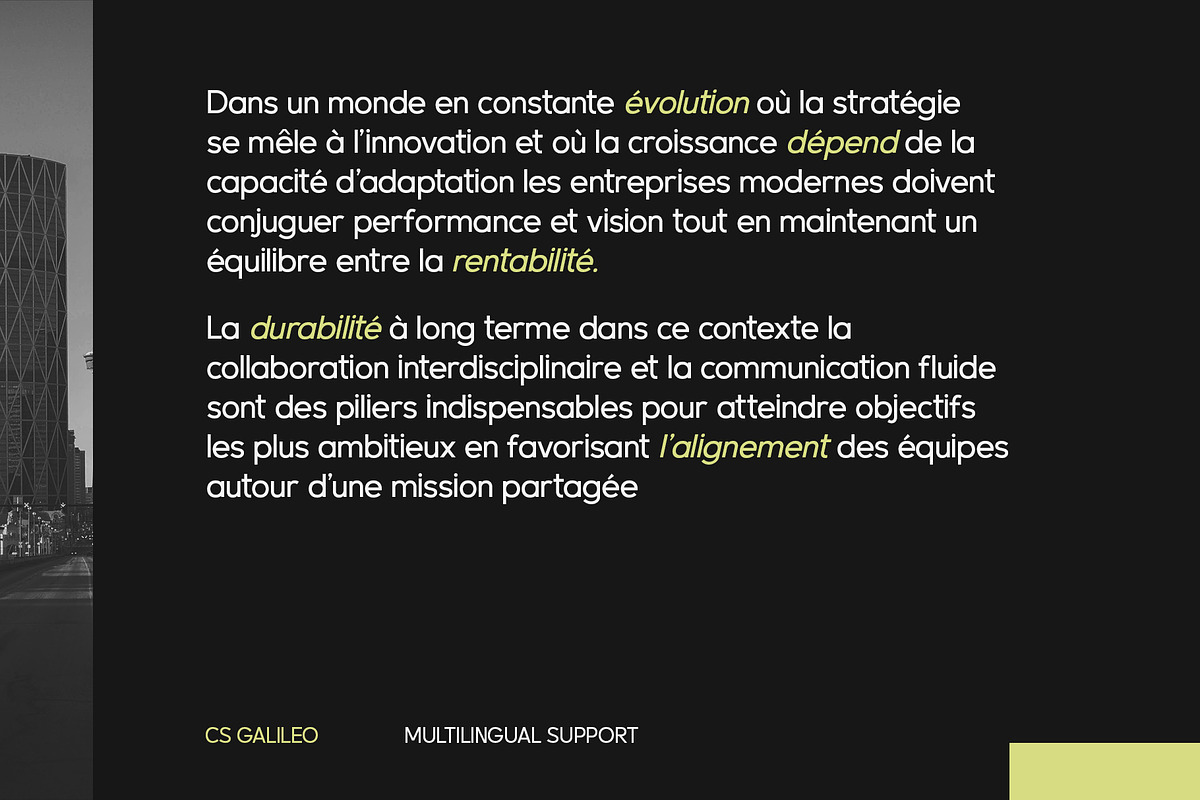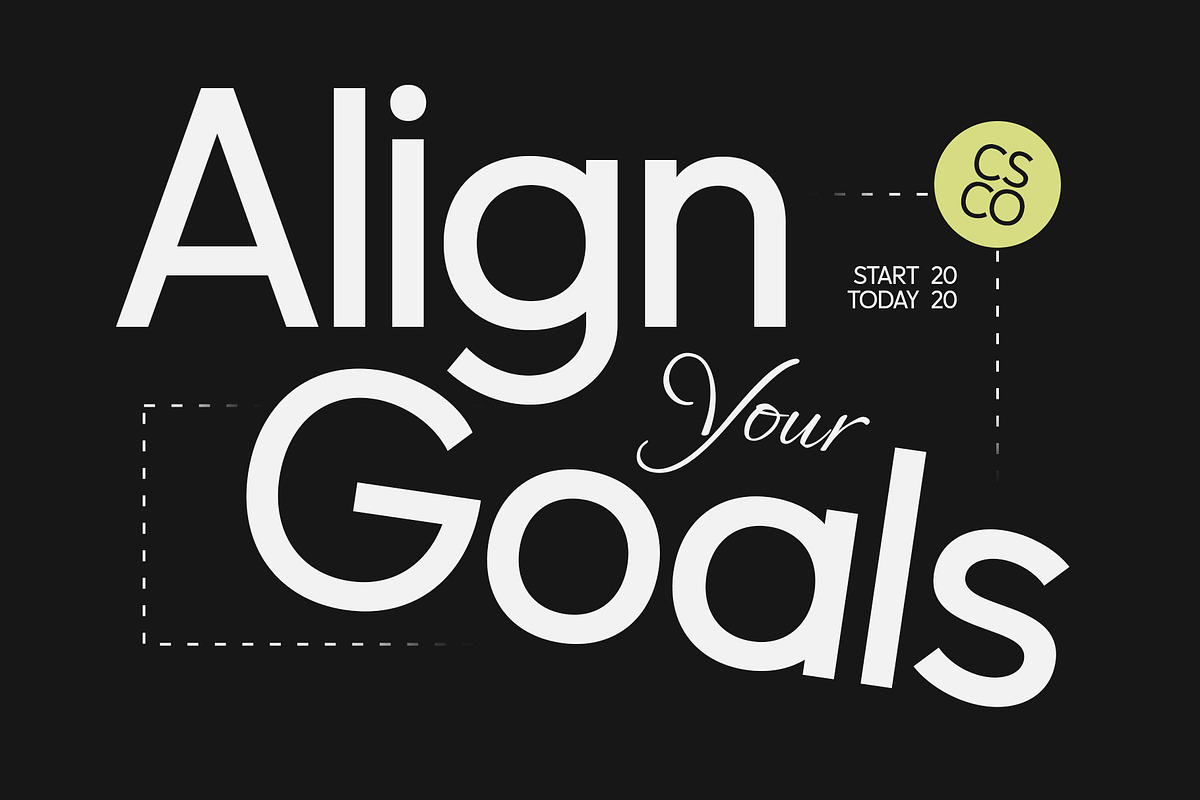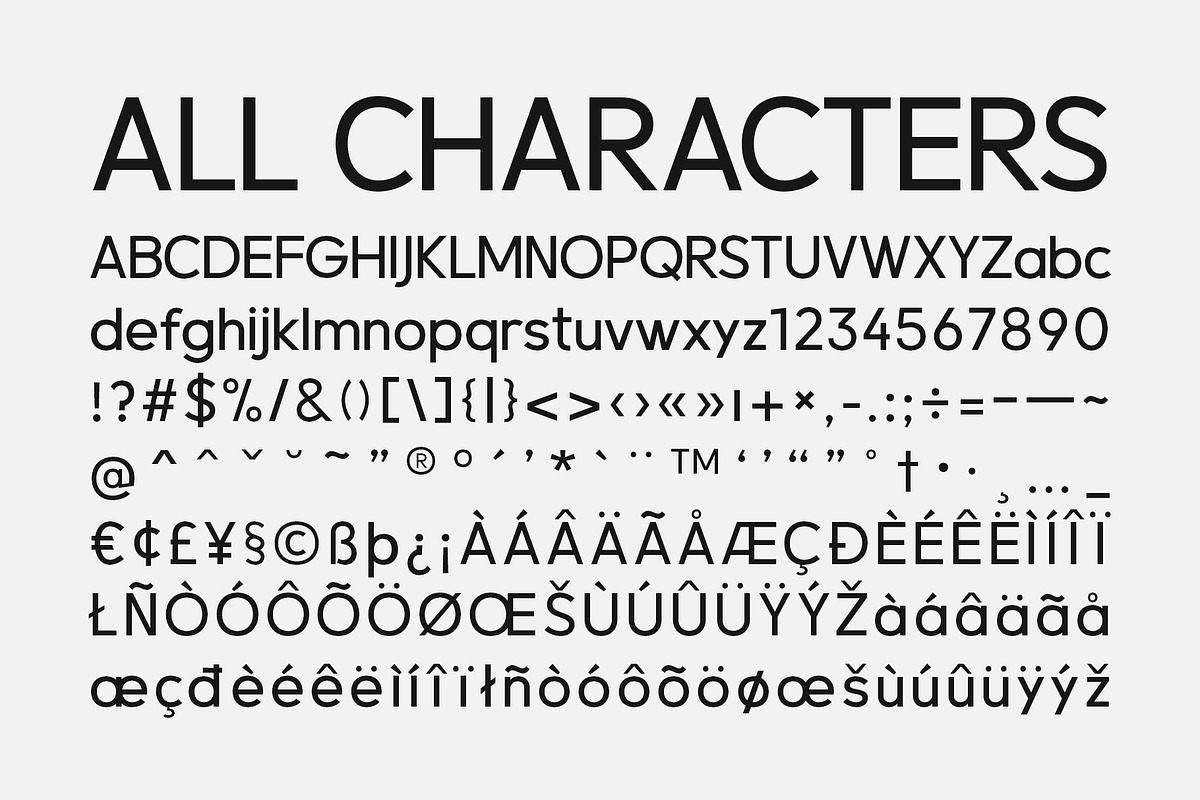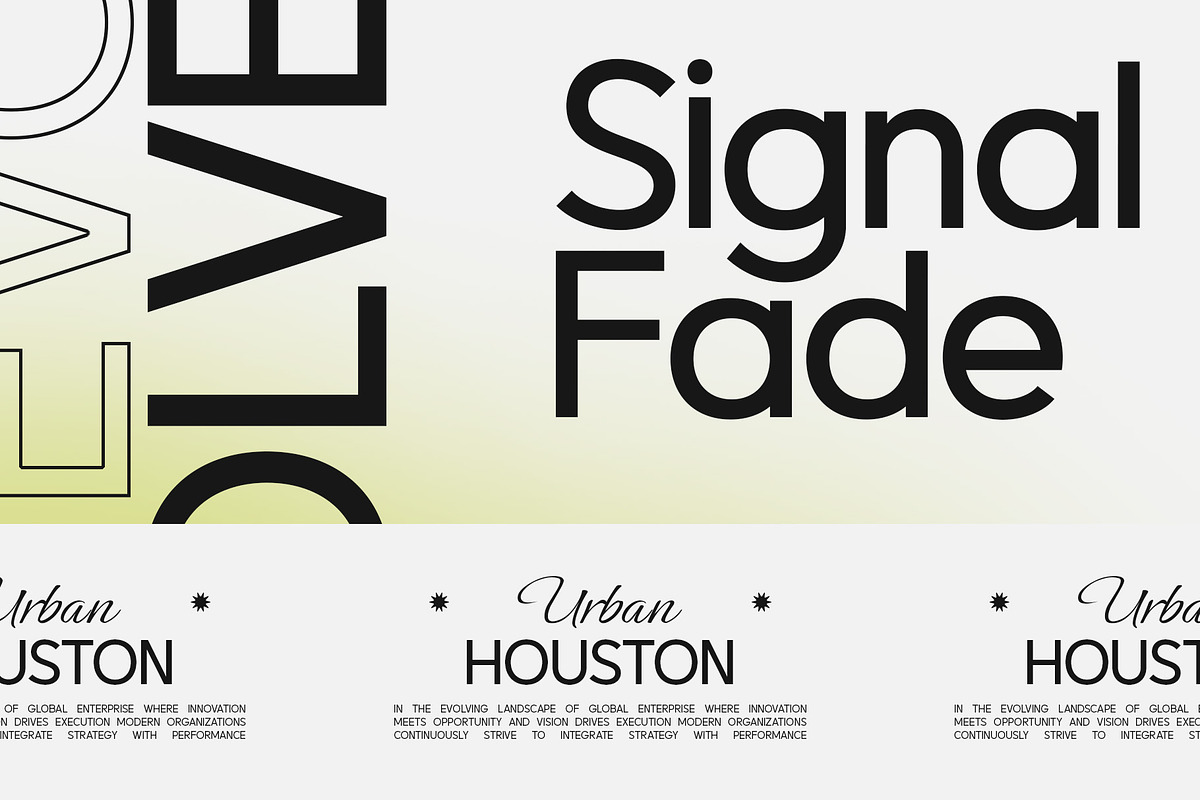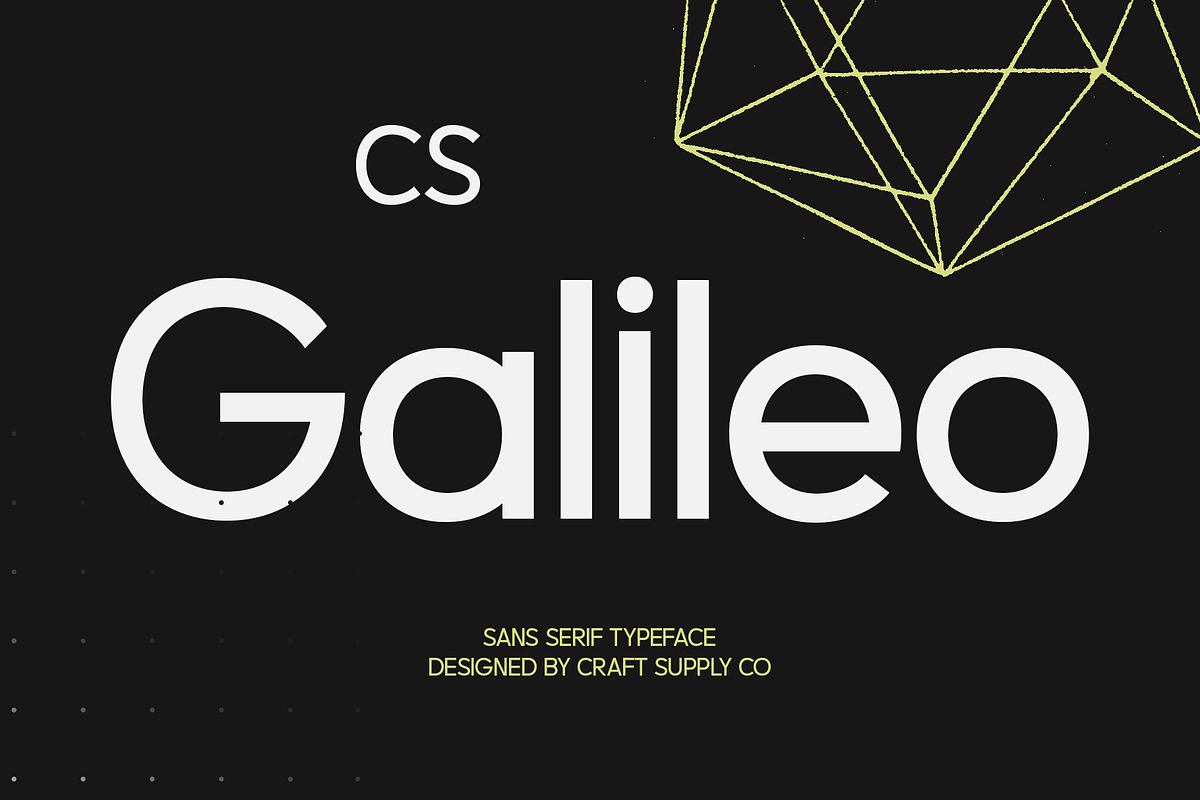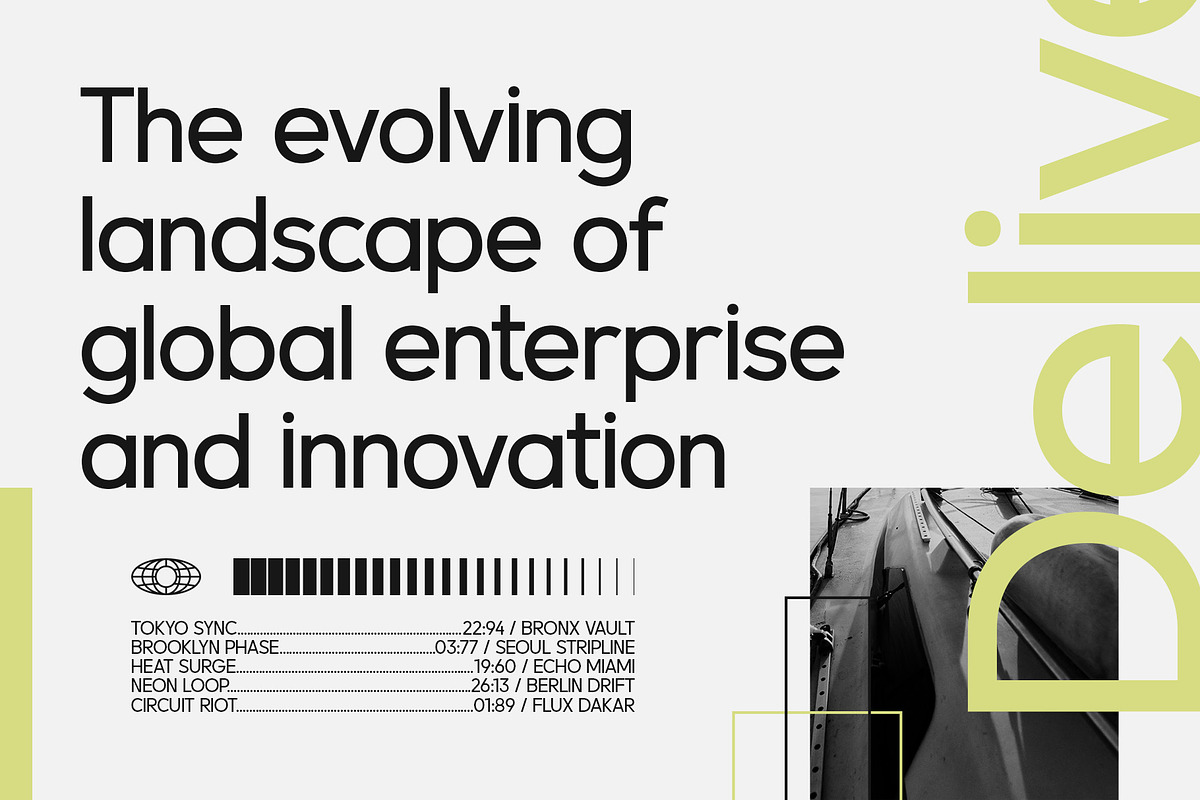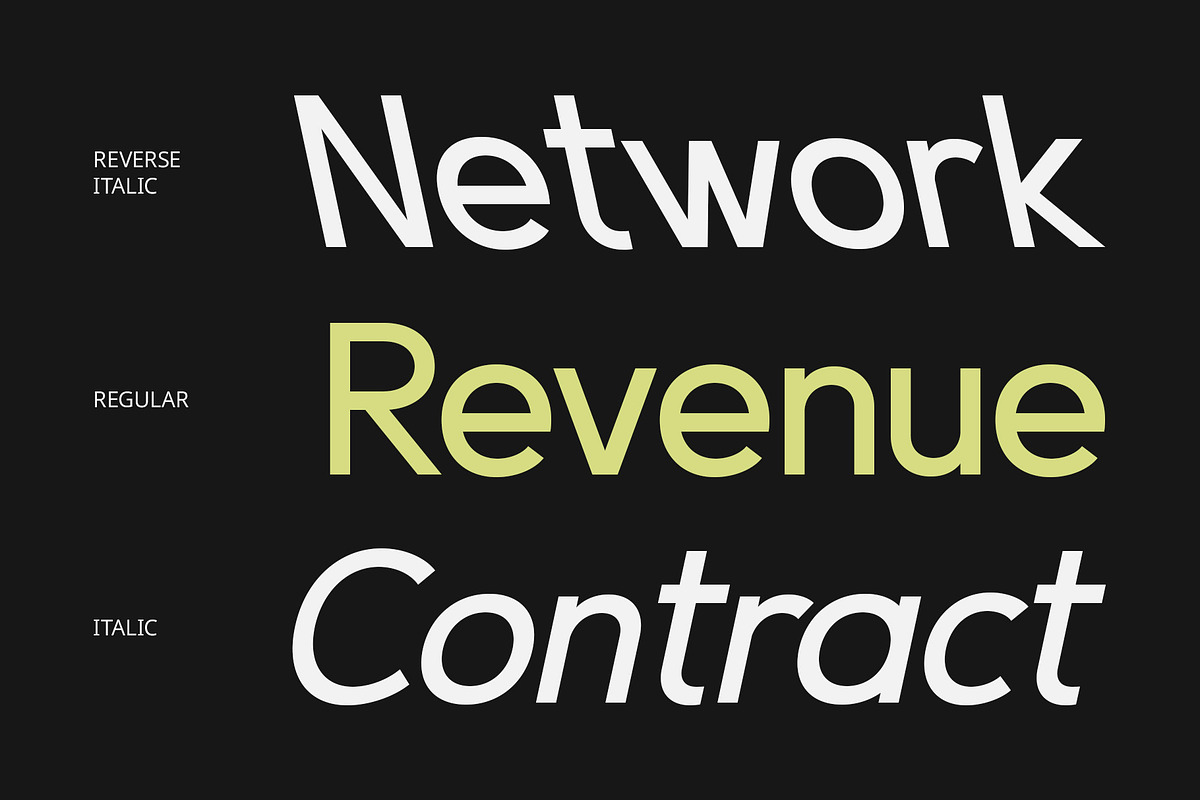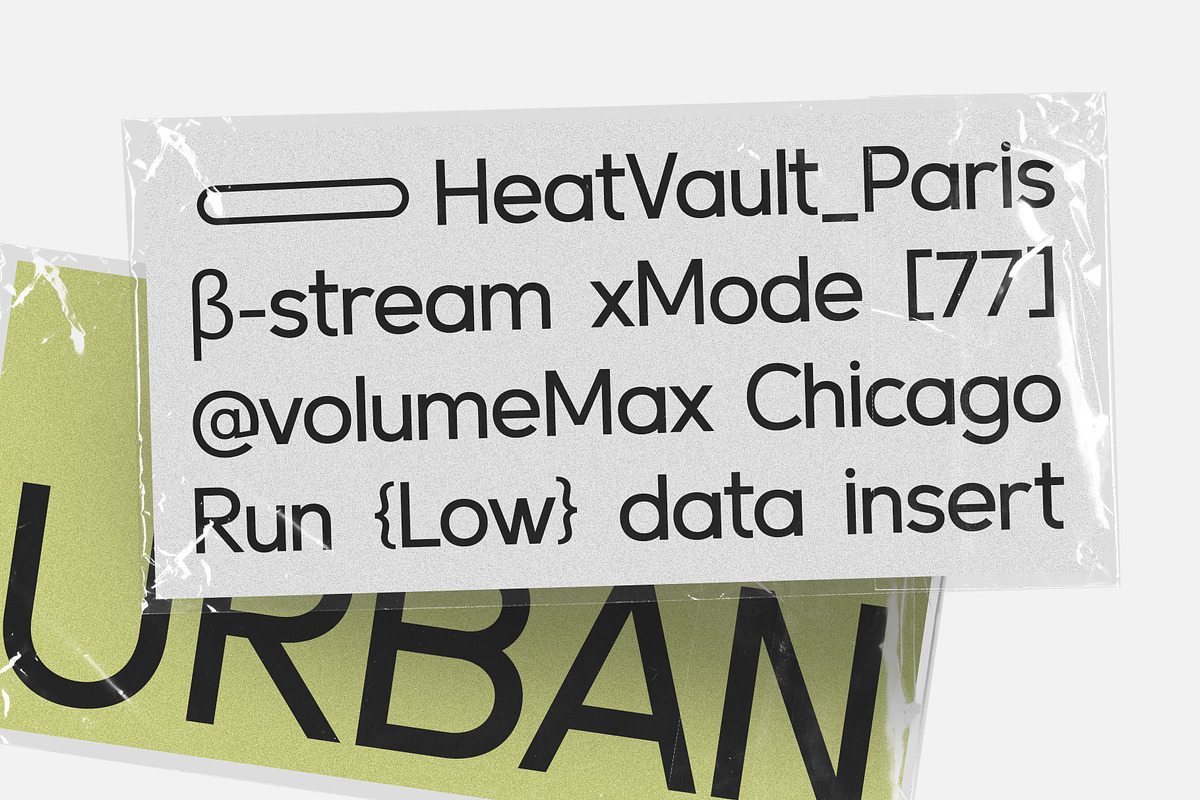
CS Galileo – Contemporary Font
CS Galileo Font – Modern Sans Serif with Clean Geometric Precision
Modern Simplicity with Balanced Structure CS Galileo is a modern sans serif font that blends minimalist precision, clean lines, and geometric shapes into a cohesive and versatile design. Its well-structured, evenly proportioned letterforms create a look that feels both professional and contemporary, delivering clarity and order without sacrificing visual appeal.
Versatile and Readable by Design Built with firm yet balanced proportions, CS Galileo offers excellent legibility and consistency, making it ideal for projects that demand a polished and dependable appearance. The geometric construction not only enhances its aesthetic but also improves readability across various screen sizes and print formats.
Perfect for Corporate and Creative Uses Whether you’re designing brand identities, UI/UX interfaces, editorial layouts, or corporate presentations, CS Galileo adapts effortlessly. Its neutral and modern tone allows it to support diverse visual directions—formal, minimalist, or innovative—without dominating the overall design.
Efficiency Meets Modern Style CS Galileo embodies the spirit of clean design and modern functionality, making it the perfect choice for tech companies, startups, digital platforms, and professional branding. Its straightforward nature makes it an excellent typographic foundation for systems that require both beauty and performance.